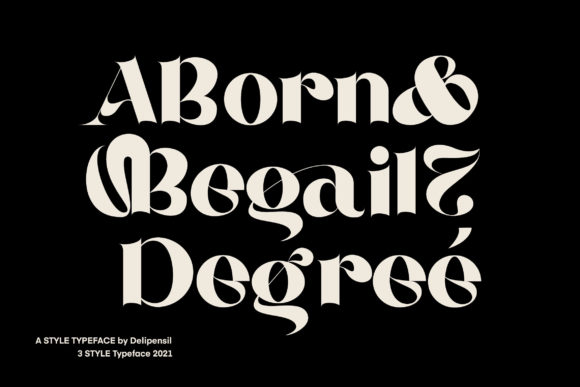
Aborn Font
Journey back to the timeless elegance of classic typography with Aborn Font, a sophisticated serif font family that exudes charm and refinement. Crafted with meticulous attention to detail, Aborn captures the essence of traditional printing, evoking a sense of nostalgia and sophistication in every letterform.
Unleash the power of Aborn and watch your creative visions come to life. Its graceful curves and sharp serifs add a touch of timeless beauty to any project, whether you're designing logos, crafting invitations, or creating eye-catching social media posts. Aborn's versatility extends beyond its classic style, effortlessly blending with contemporary aesthetics to create stunning designs that stand out from the crowd.
Experience the joy of effortless customization with Aborn's PUA encoding, granting you access to a world of glyphs and swashes with remarkable ease. Unleash your creativity and let your imagination soar as you explore the endless possibilities that Aborn presents.
Indulge in the opulence of Aborn and elevate your designs to new heights. Its timeless appeal guarantees that your creations will remain relevant and captivating for years to come. Embrace the allure of Aborn and embark on a creative journey that transcends time and trends.